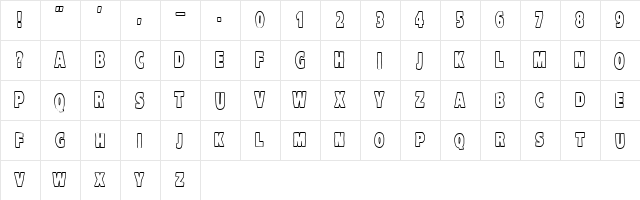
VTC-KomikaHeadLinerTwo Outline
| Foundry | WolfBainx - Larry E. Yerkes, Vigilante Typeface Corporation. |
| Designer | WolfBainx - Larry E. Yerkes, Vigilante Typeface Corporation. |
Design Context for VTC-KomikaHeadLinerTwo Typeface
VTC-KomikaHeadLinerTwo brings ornamental detail and strong personality to headlines and identities, where visual impact matters more than quiet functionality.
Font Pairing: Pair with a clean neutral sans-serif for body copy to let VTC-KomikaHeadLinerTwo's character lead without overwhelming the composition.
Pro Tip: Use VTC-KomikaHeadLinerTwo exclusively at display sizes — it was designed to be seen, not read at length. Let a neutral companion handle body copy.